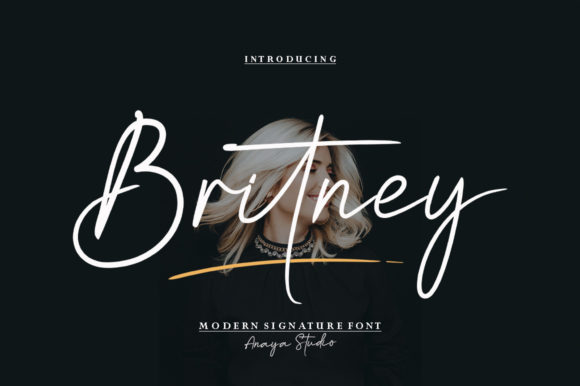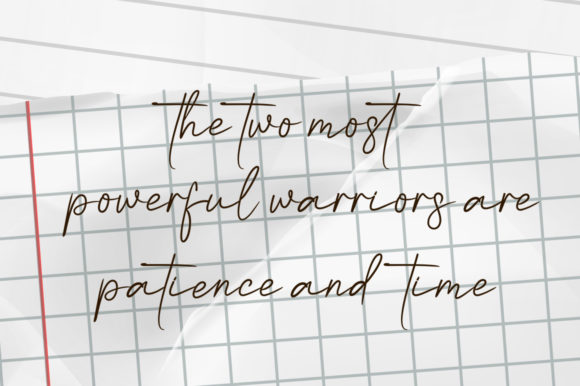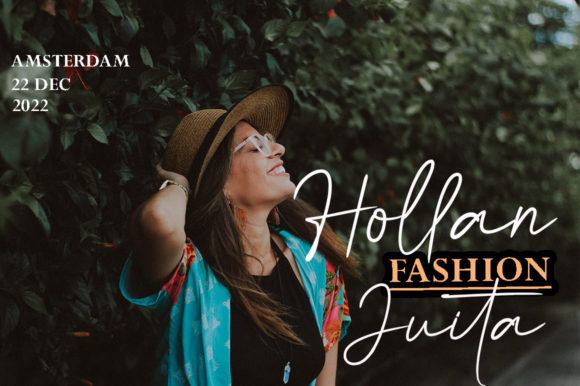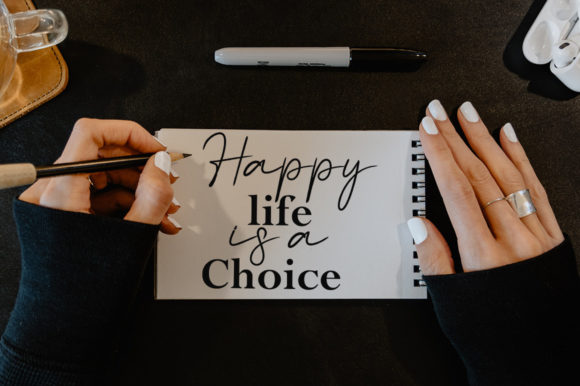
About Britney Font
Britney is a relaxed and fashionable script font. It is perfect for creating signature logos and watermarks for photography studios or photography logos. Add it confidently to your favorite creations and let yourself be amazed by the outcome generated.Â